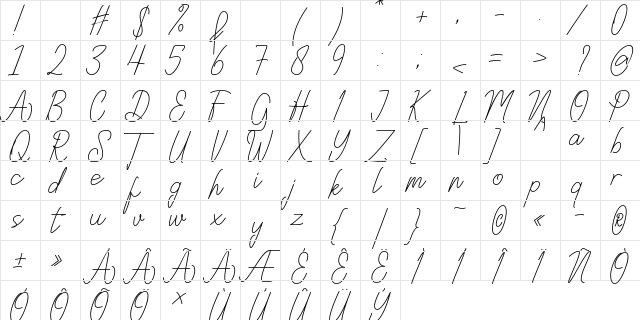
Qittuny Signature Regular
Qittuny Signature is a composed and adaptable typeface that performs quietly and consistently across a wide range of design contexts.